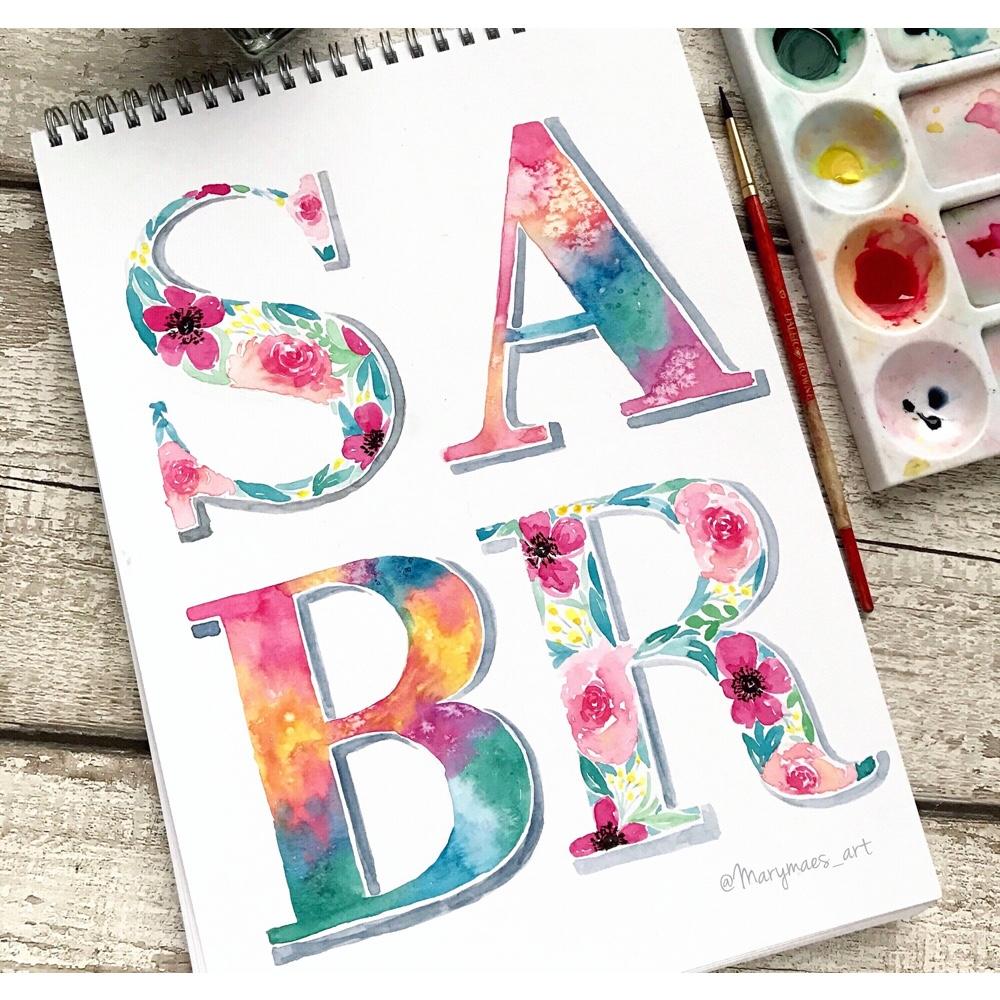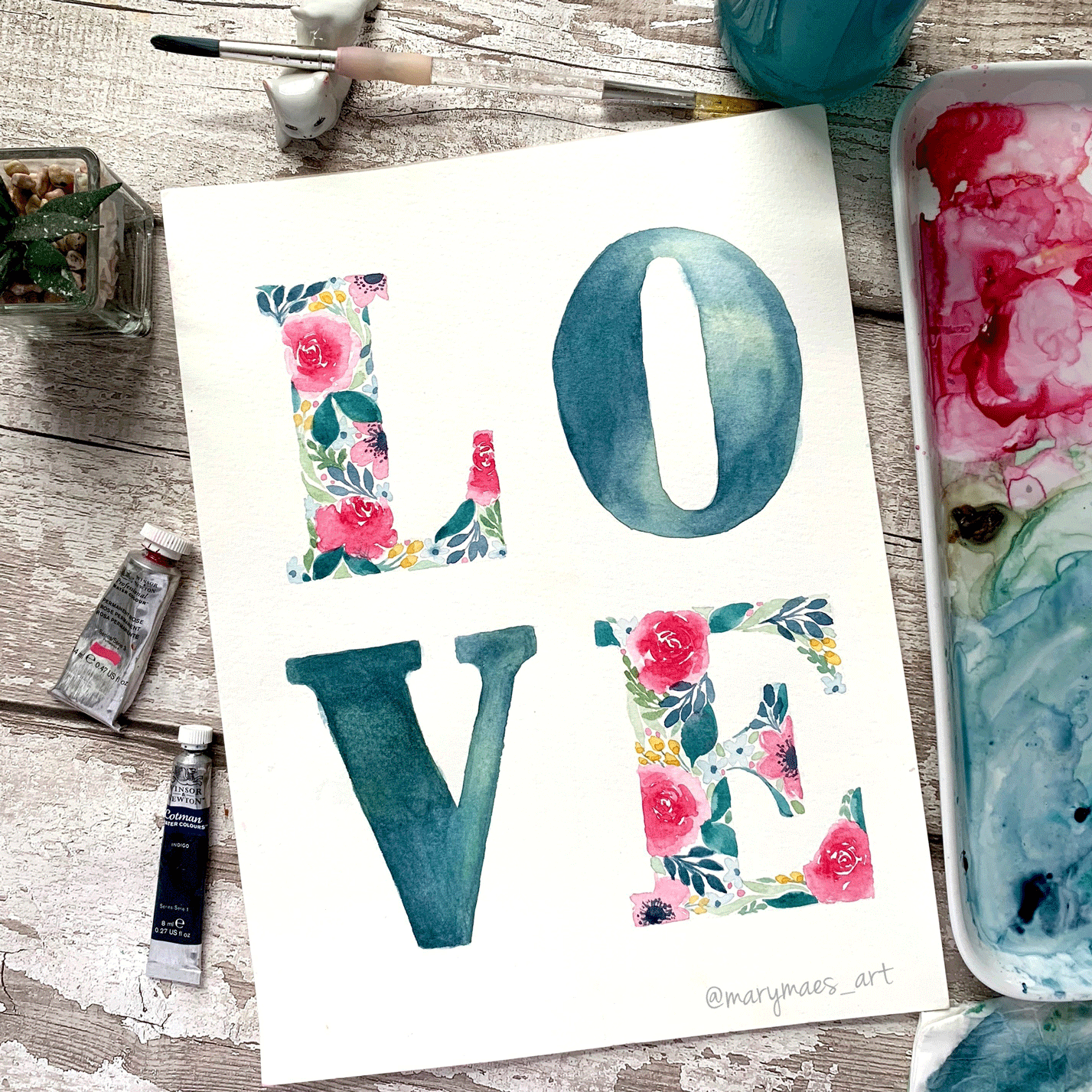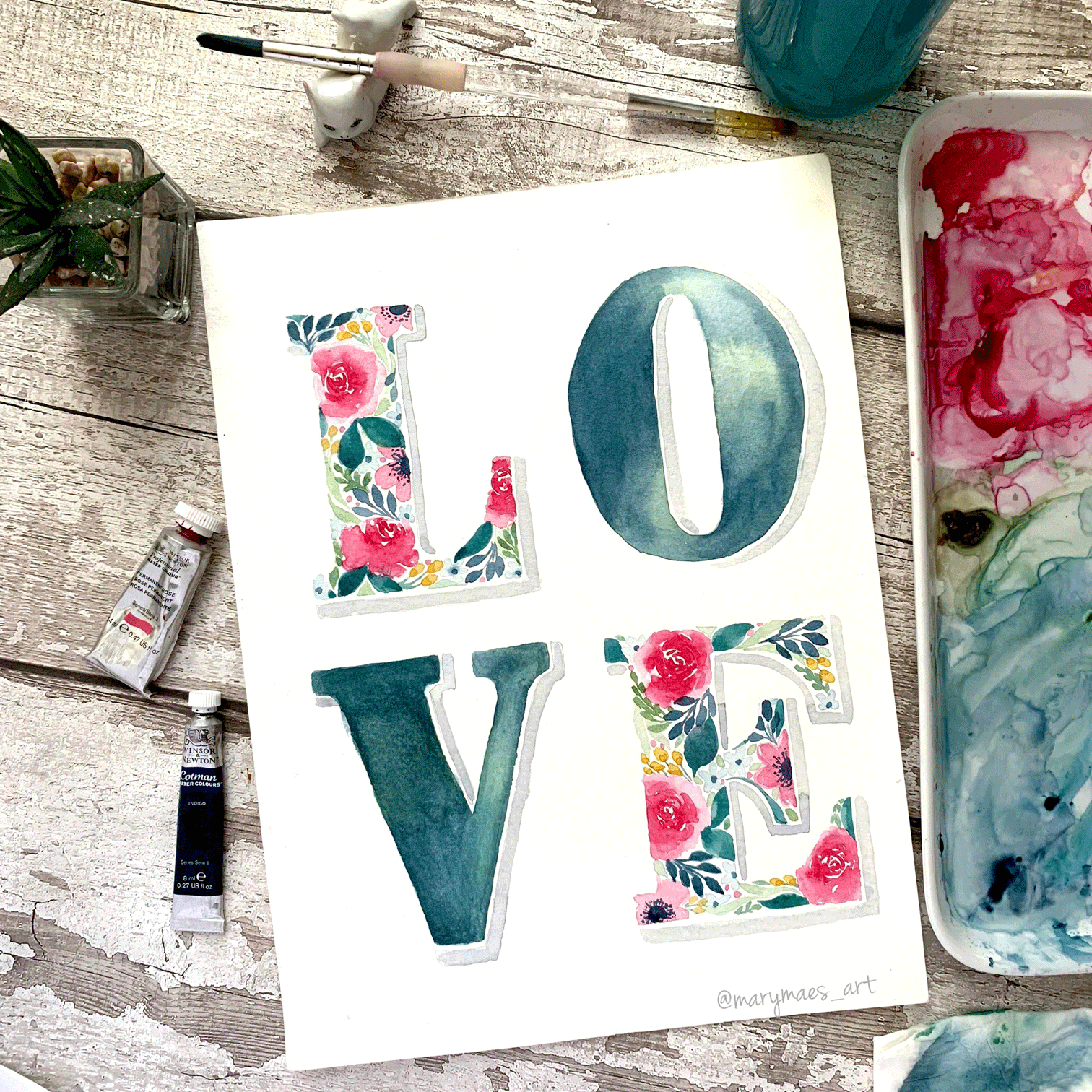
SABR watercolor font
Update: Decided to come back to this class and paint another project because I loved the one I painted previously. This time I chose my favourite colour palette at the moment. I realised I forgot to add shading after I took the first picture. Which one do you prefer? with or without shading?